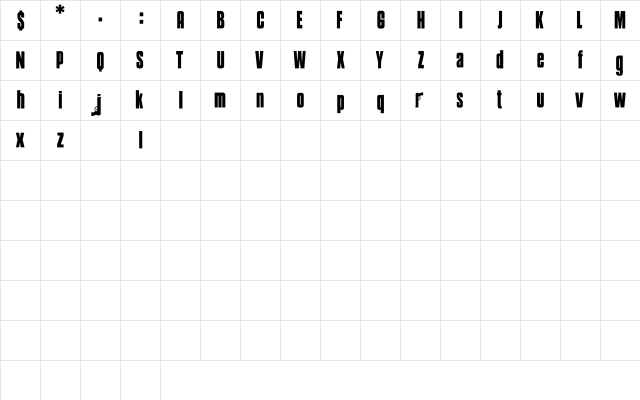
Soprano Demo Normal
| Foundry | High-Logic |
| Designer | High-Logic - Erwin Denissen |
Design Context for Soprano Demo Typeface
Soprano Demo offers clean, dependable letterforms without strong stylistic allegiance, making it a practical choice for designers who need flexibility.